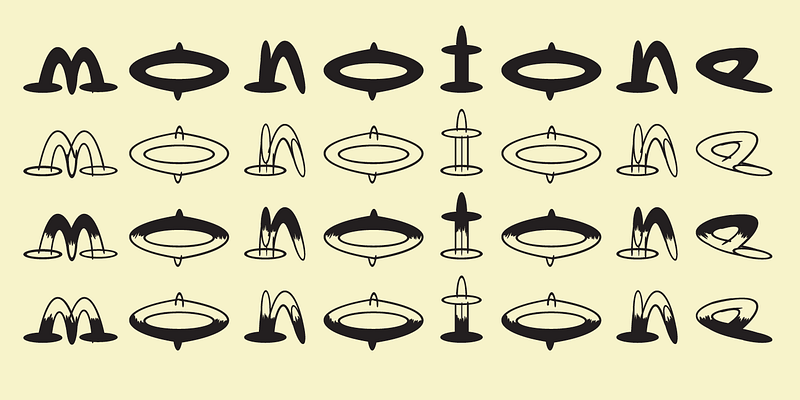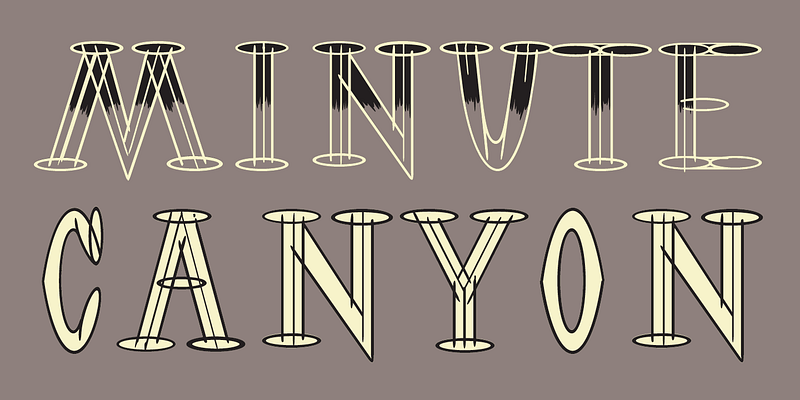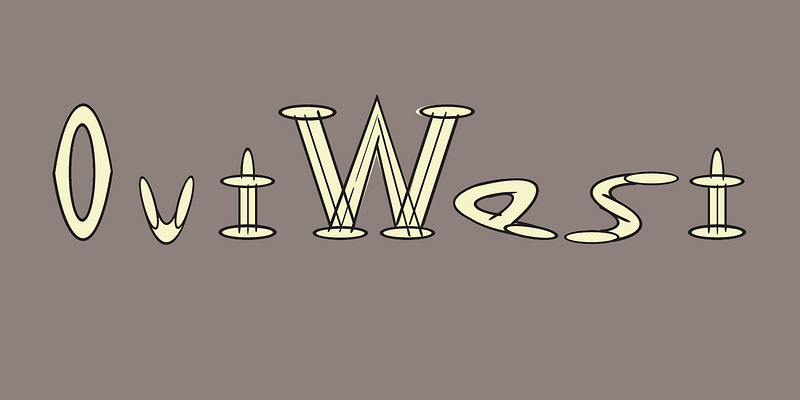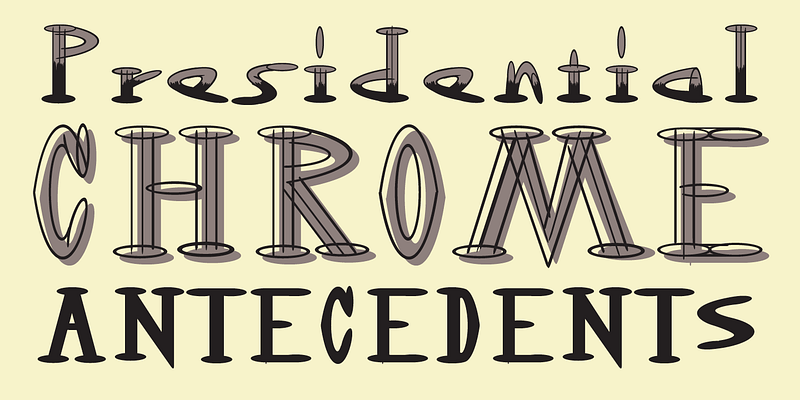
OutWest was originally commissioned by art director Laurie Haycock Makela for use in the Walker Art Center’s publication Design Quarterly.
Fella originally drew OutWest by hand using the fifteen degree ellipse on an architectural template. The full name given to this design, “Out West on a Fifteen Degree Ellipse,” evokes rational yet organic, as well as Western qualities. The four companion fonts can be used in combination to create multicolored and multilayered typographic creations for use as drop caps or word logos.
Outwest was digitized by Zuzana Licko.